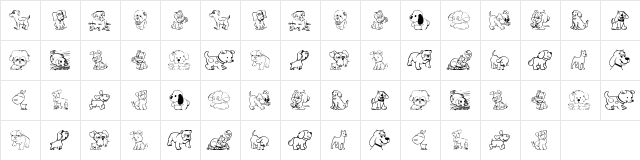
tender puppies Regular Font Preview
tender puppies Regular
tender puppies Regular Font Details
| Foundry | Ding Bang Master |
| Designer | Ding Bang Master |
Design Context for tender puppies Typeface
tender puppies is a composed and adaptable typeface that performs quietly and consistently across a wide range of design contexts.